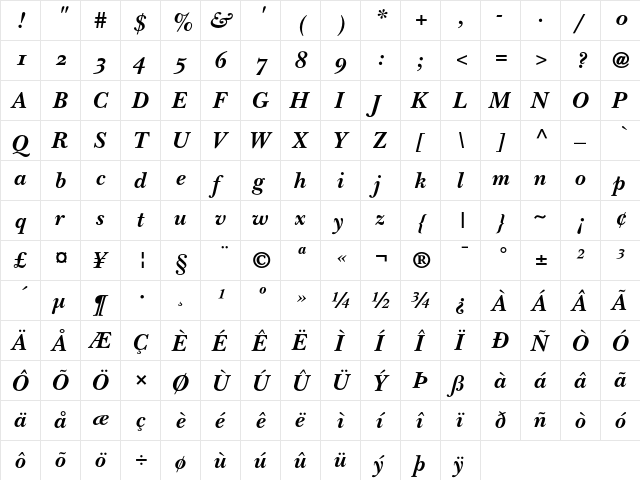
ITC New Baskerville Bold Italic Old Style Figures
Design Context for ITC New Baskerville Typeface
ITC New Baskerville is a composed and adaptable typeface that performs quietly and consistently across a wide range of design contexts. Its italic angle brings a sense of urgency and motion to the letterforms. The heavy weight commands attention and anchors typographic hierarchies.
Pro Tip: Use ITC New Baskerville for emphasis, pull quotes, and subheadings where its slanted energy can add rhythm to the layout.